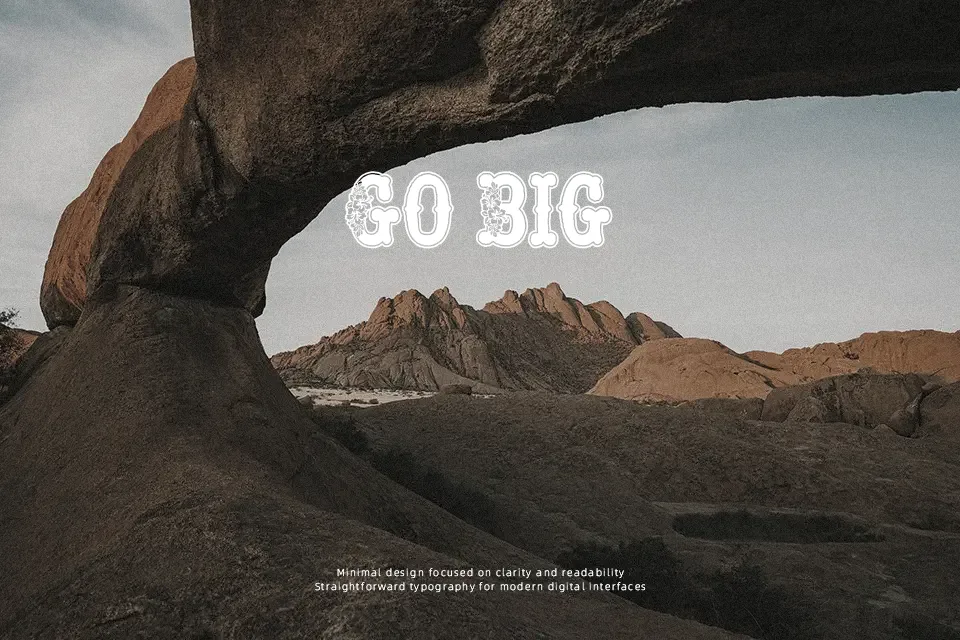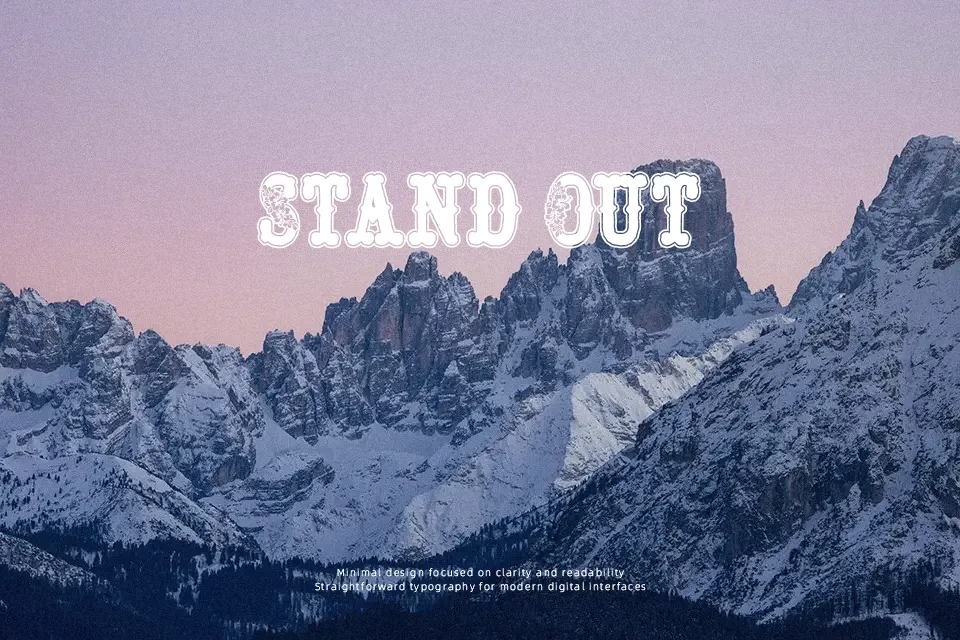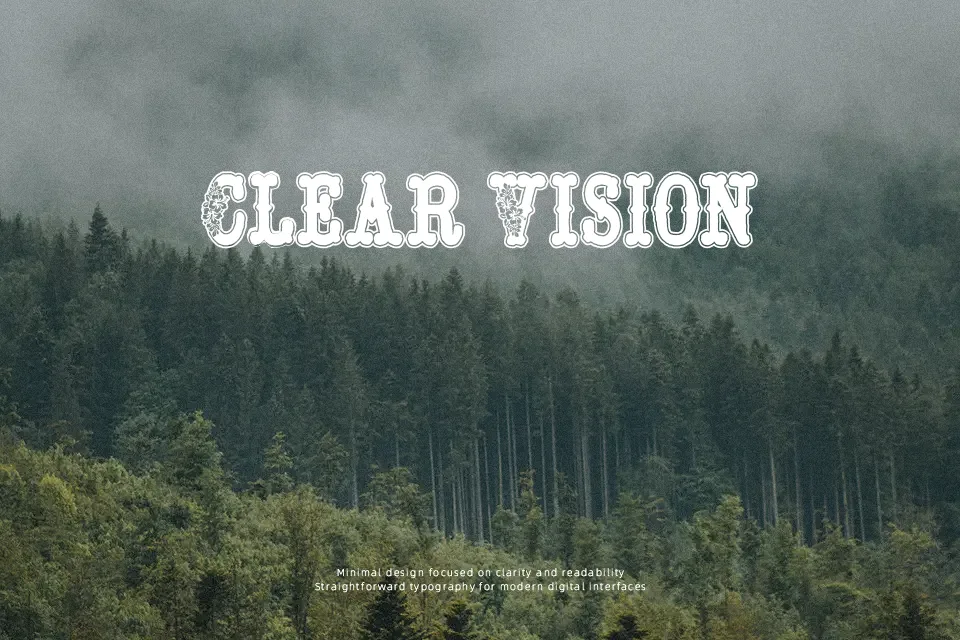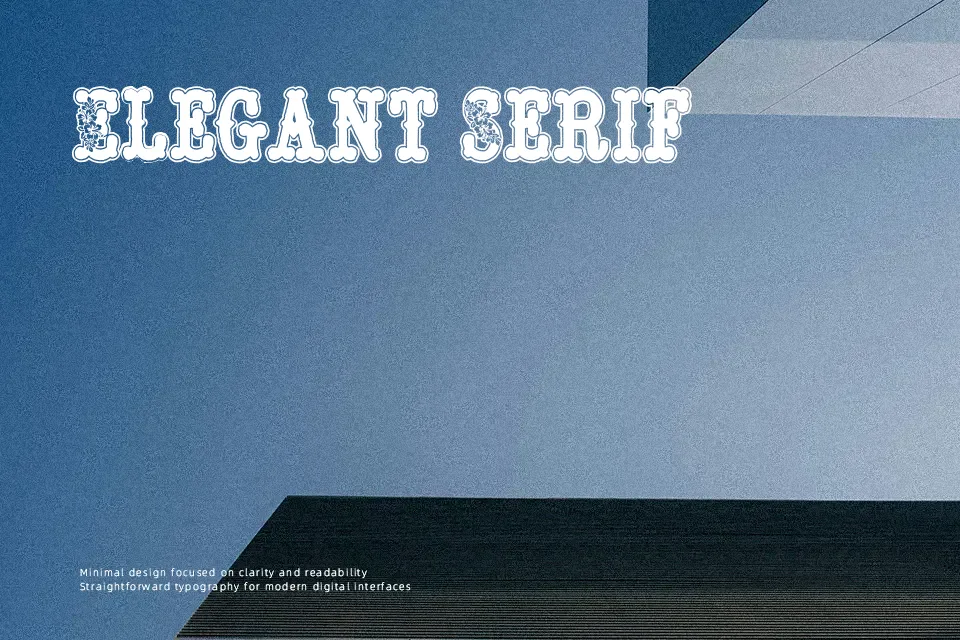
Surfschool Font
Surfschool Font introduces a heavy decorative display aesthetic built with robust slab proportions and distinct vintage styling. Thick uniform strokes create an imposing silhouette across uppercase letterforms, while moderate character spacing maintains structural clarity in short titles. The wide letter stance and energetic decorative accents give headlines an authentic retro presence that thrives in large print formats. However, the dense weight and elaborate styling significantly reduce legibility when scaled down to small sizes or applied to continuous body text. In practical evaluation, the typeface functions exceptionally well for themed merchandise, surf shop signage, and bold promotional banners where instant visual impact takes priority over dense typographic hierarchy.
Best For: vintage apparel graphics, surf shop signage, summer event posters, merchandise packaging
Not Ideal For: extended body paragraphs, mobile interface labels, dense editorial text, corporate documentation
Perfect for headline, logo, and packaging, with a bold and decorative style.